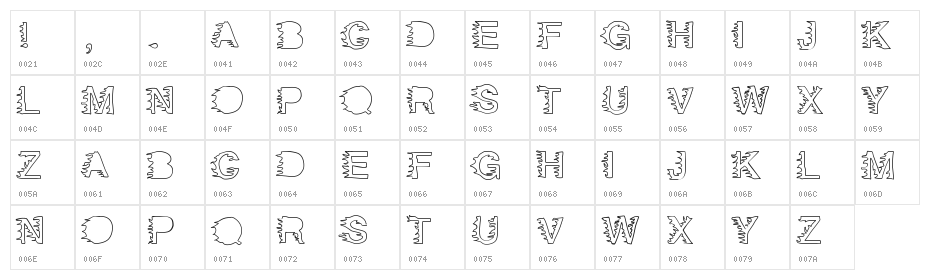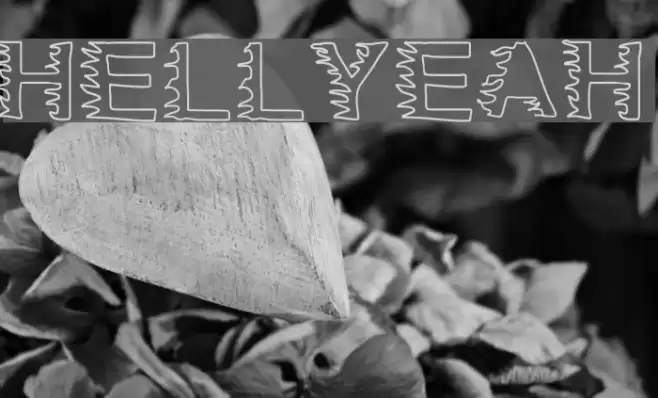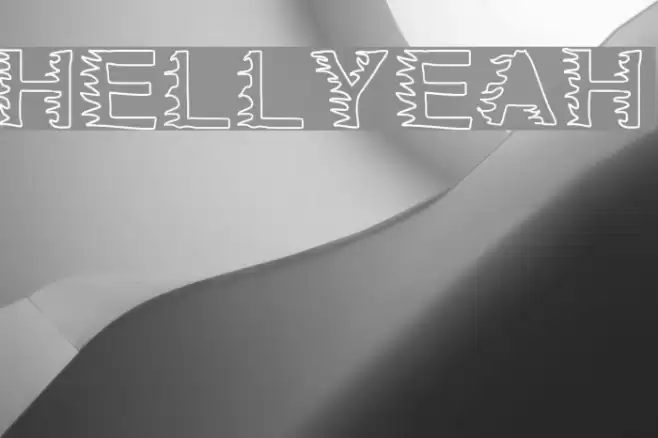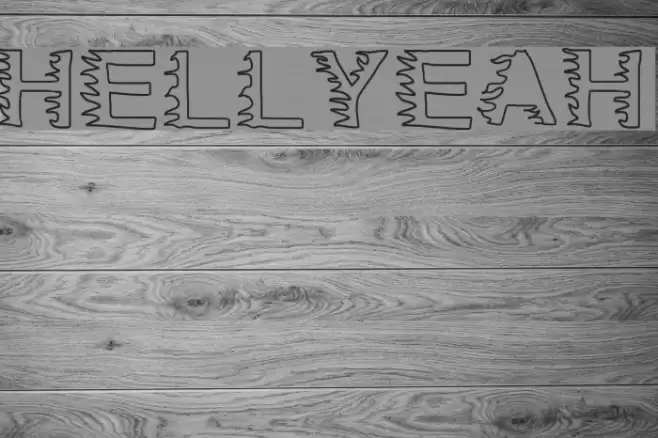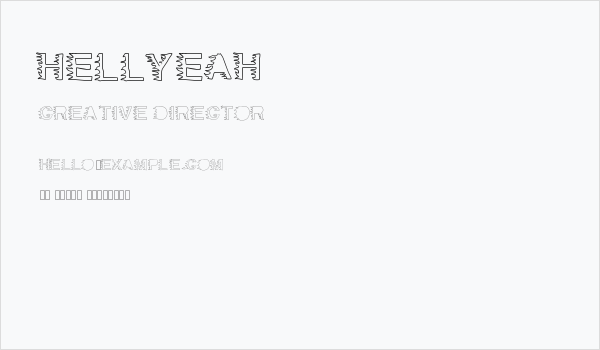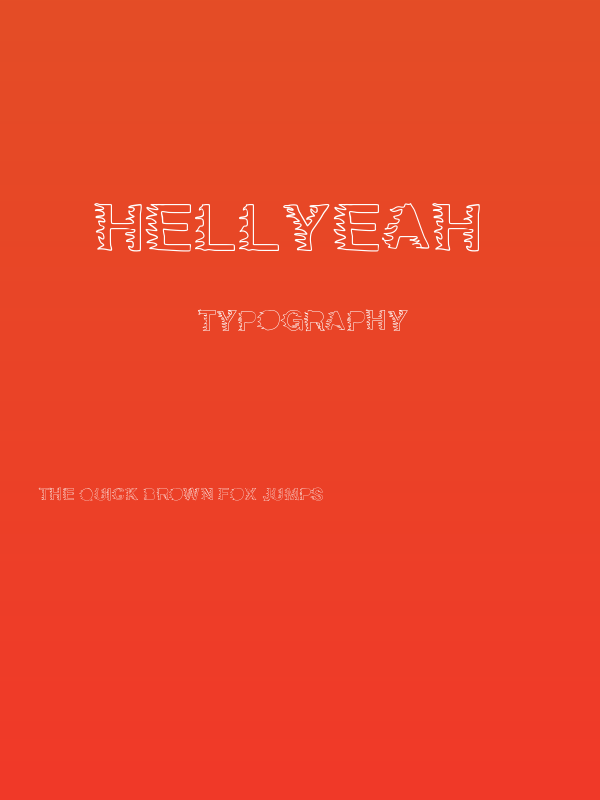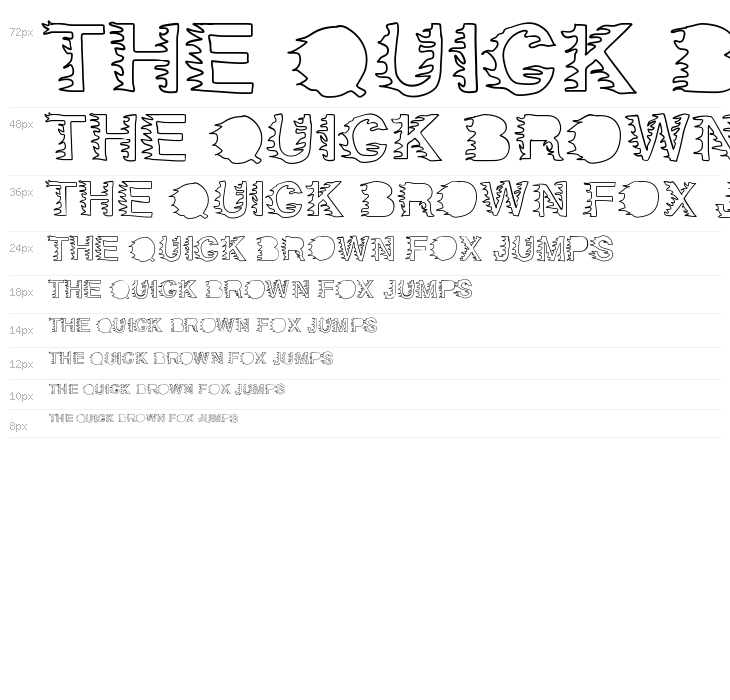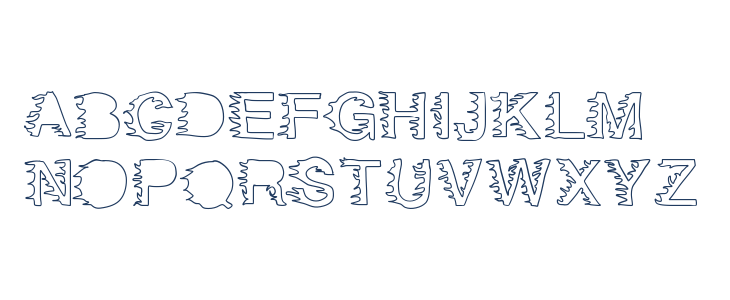
HellYeah Font
HellYeah Description
This font features a bold, decorative style with a unique jagged outline that gives it a dynamic and energetic appearance. The uppercase letters are consistent in height, with each character exhibiting a playful, zigzag pattern along the edges. This design choice adds a sense of movement and excitement, making it stand out in any context. The font lacks lowercase letters and numerals, focusing solely on uppercase characters and a few special symbols. Its distinct style is reminiscent of retro or comic book aesthetics, making it ideal for projects that require a fun and eye-catching typeface.
| Overall Style | Retro, Energetic, Playful |
| Proposed Projects | Ideal for comic book titles, retro-themed posters, party invitations, and playful branding projects. |